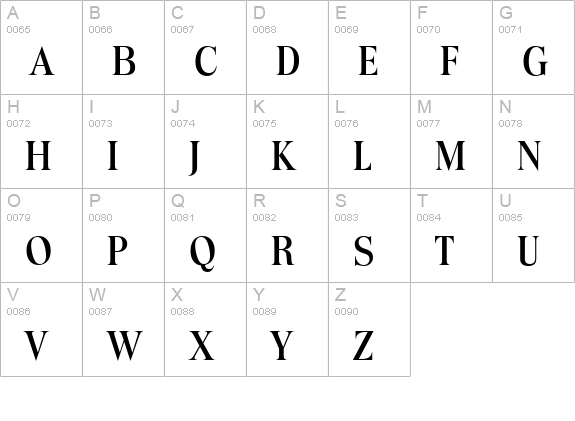
ToledoSerial-Medium-Regular is a balanced, medium-weight variant in the ToledoSerial typeface family \xE2\x80\x94 well suited to sub-headlines, navigation, and balanced editorial work.
ToledoSerial-Medium-Regular is a versatile and elegant font that adds a touch of sophistication to any design project. With its clean lines and unique serifs, this font is perfect for a wide range of applications, from branding to editorial design. The balanced combination of classic and modern elements makes ToledoSerial-Medium-Regular a timeless choice for both print and digital media. What's even better is that ToledoSerial-Medium-Regular is available for free download at FontsMarket.com. This means you can easily access and use this high-quality font without any cost or restrictions. Don't miss out on the opportunity to enhance your design projects with ToledoSerial-Medium-Regular today!